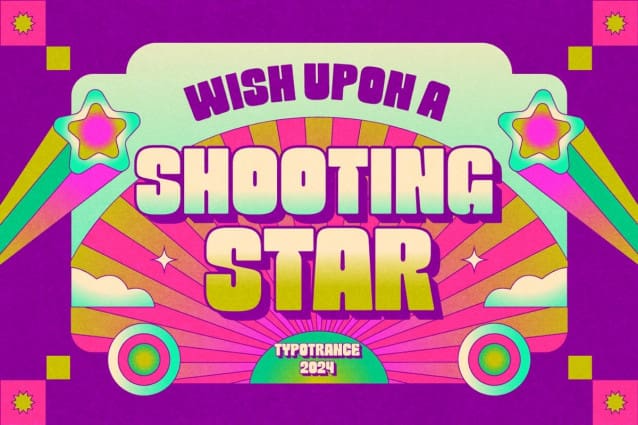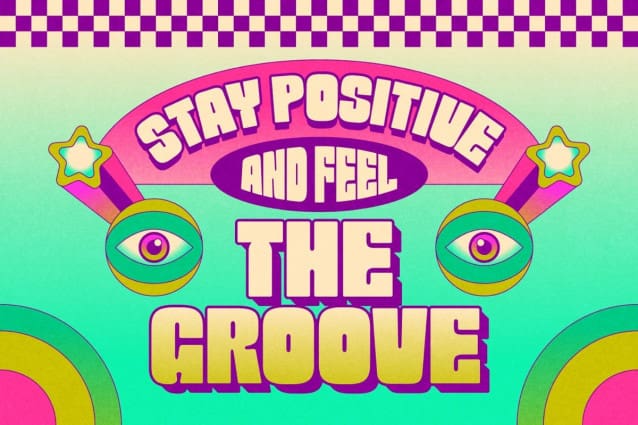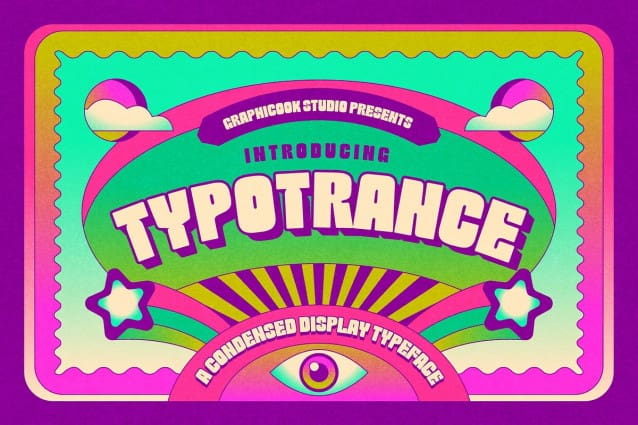
Typotrance Font
Typotrance Font, a psychedelic font that adds playful charm to any projects. Ideal for ensuring your headlines, packaging, and games make a memorable impression.
Typotrance is perfect for headlines, logotypes, magazines, packaging, quotes, movies, games, cover albums, book covers, and flyers, it’s a perfect solution for creating eye-catching designs that stand out in any context.